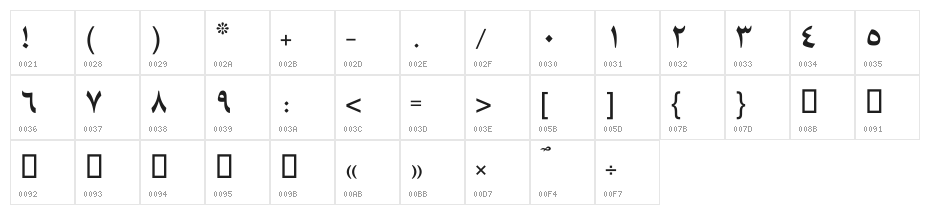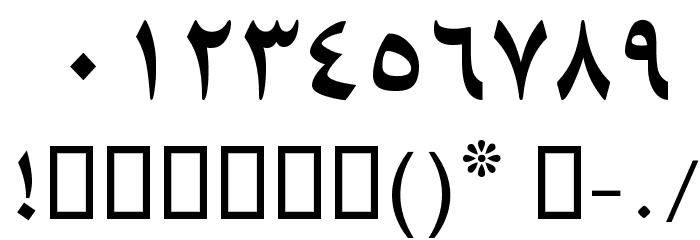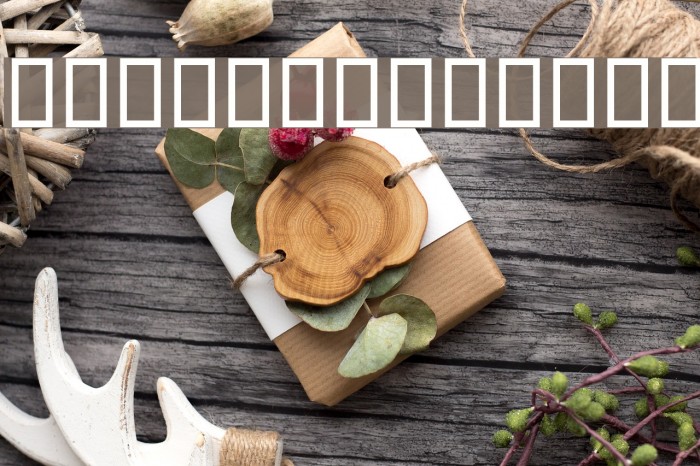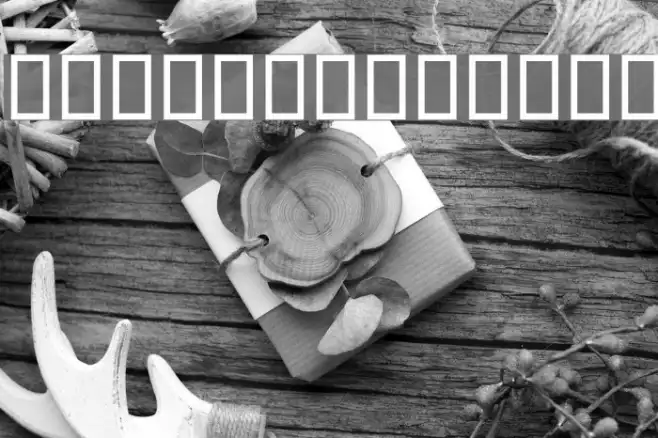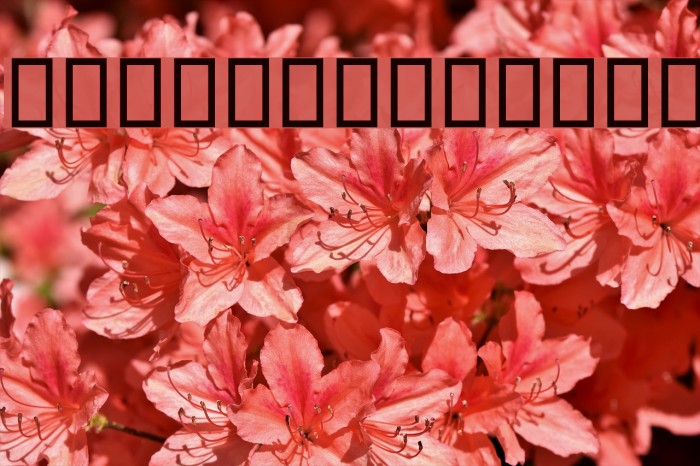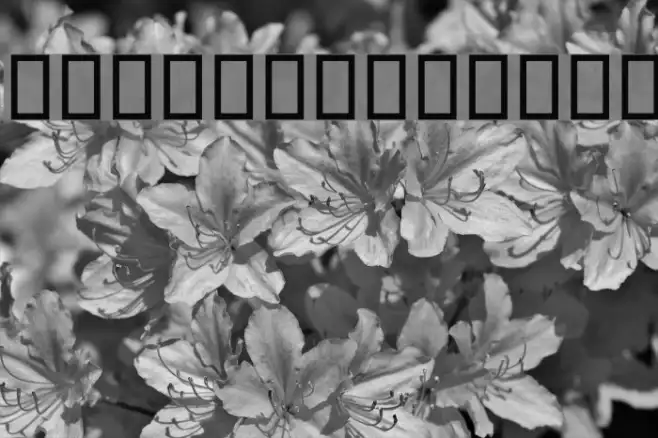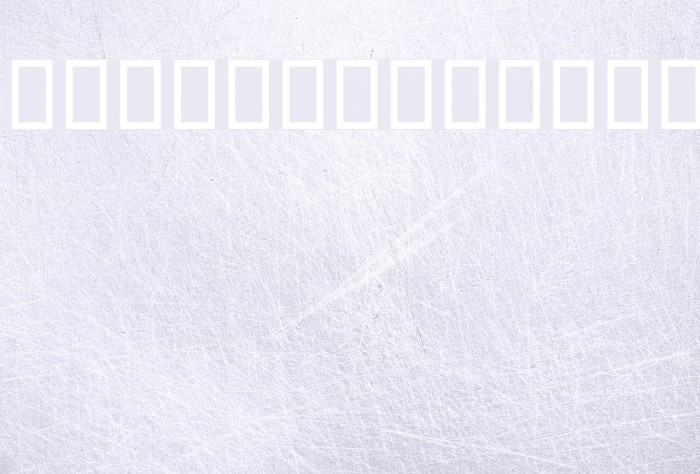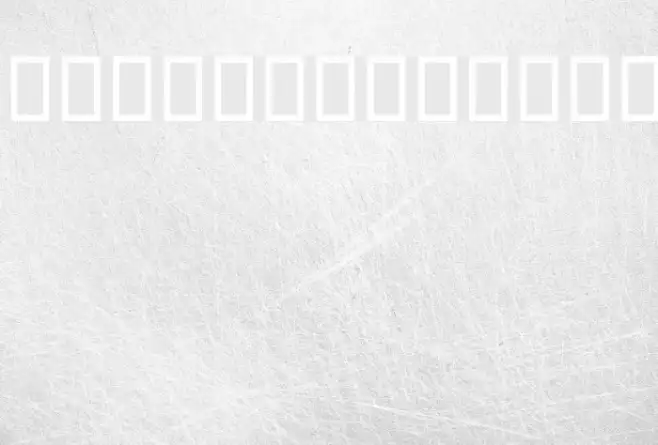
Modir Font
Modir Description
This font features a unique and artistic style, characterized by its flowing and curvilinear forms. The characters exhibit a playful yet elegant design, with varying stroke thickness that adds a dynamic feel to the text. The numbers are particularly distinctive, with a slight slant and exaggerated curves that give them a whimsical appearance. The special characters maintain this artistic flair, ensuring consistency across the font. This font is well-suited for creative projects where a touch of personality and flair is desired.
| Proposed Projects | Ideal for creative projects such as invitations, posters, and branding materials where a unique and artistic touch is needed. |